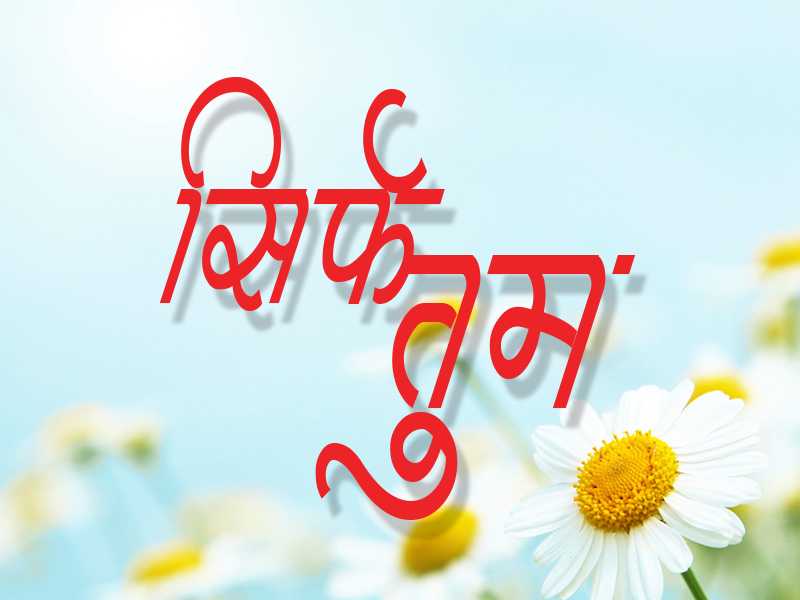
AMS Divya
Unleash your creativity with AMS Divya, a captivating calligraphy font that combines grace and elegance. Whether you're searching for AMS Divya font download options or free AMS calligraphy fonts, AMS Divya will add a touch of sophistication to your designs.
About AMS Divya Font
Unleash your creativity with AMS Divya, a captivating calligraphy font that combines grace and elegance. Whether you're searching for AMS Divya font download options or free AMS calligraphy fonts, AMS Divya will add a touch of sophistication to your designs. This calligraphy font combines elegance with functionality, making it perfect for various design applications.
AMS Divya is a professionally crafted calligraphy typeface that brings clarity and style to your projects. Designed with attention to detail, it supports hindi and marathi characters flawlessly.
Whether you're working on wedding-materials, invitations, posters, or other creative projects, AMS Divya delivers consistent performance across both digital and print media. This carefully designed typeface ensures readability and visual appeal in all your design work.
About AMS Divya Typography Style
AMS Divya is a professionally crafted calligraphy font that exemplifies modern Hindi typography design. This free font is perfect for designers seeking impactful poster and display applications.
Available in 1 weight and supporting hindi, marathi scripts, AMS Divya offers exceptional versatility for both digital and print media. Whether you're working on wedding-materials, invitations, posters, this carefully designed typeface ensures consistent quality and professional results across all your typography projects.